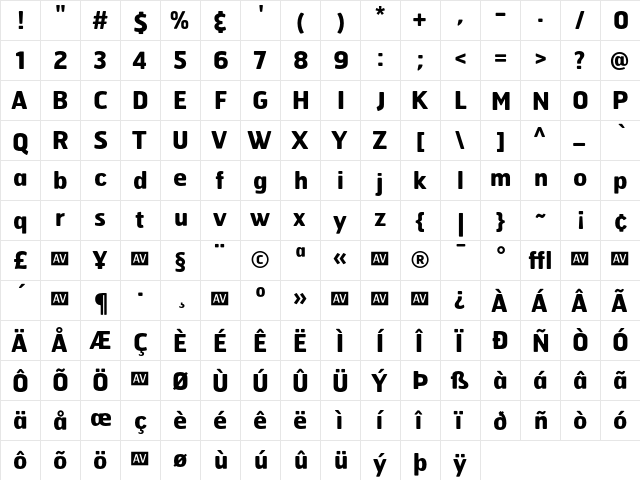
Hermes Bold
Design Context for Hermes Typeface
Hermes offers clean, dependable letterforms without strong stylistic allegiance, making it a practical choice for designers who need flexibility. The heavy weight commands attention and anchors typographic hierarchies.
Pro Tip: Pair Hermes with a font of contrasting weight or personality to build a more expressive typographic hierarchy.